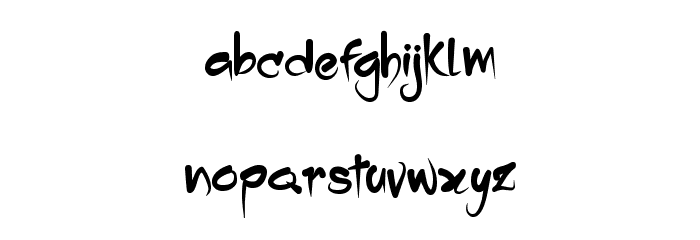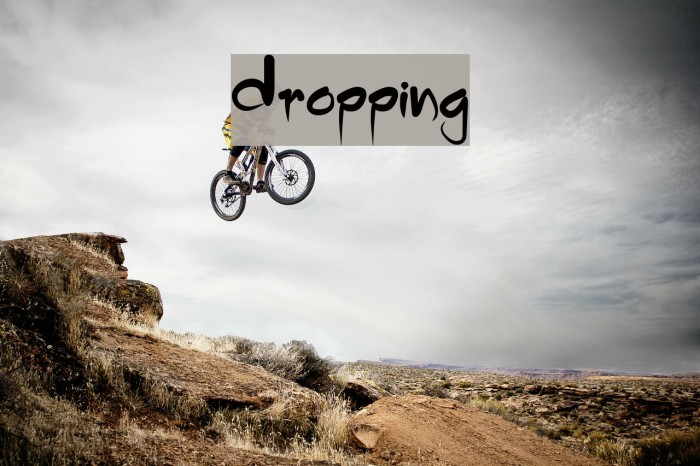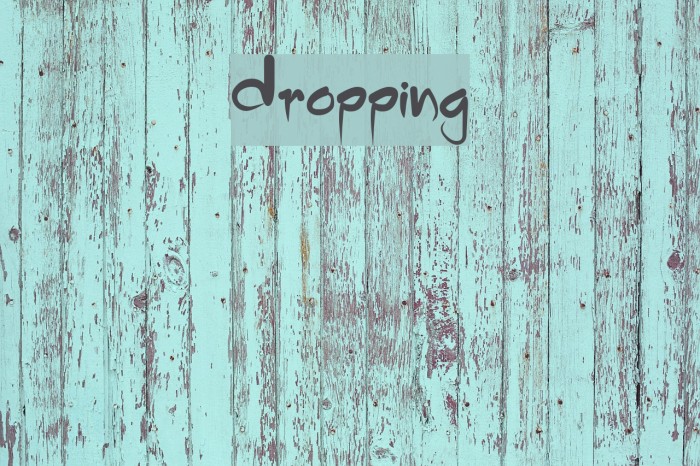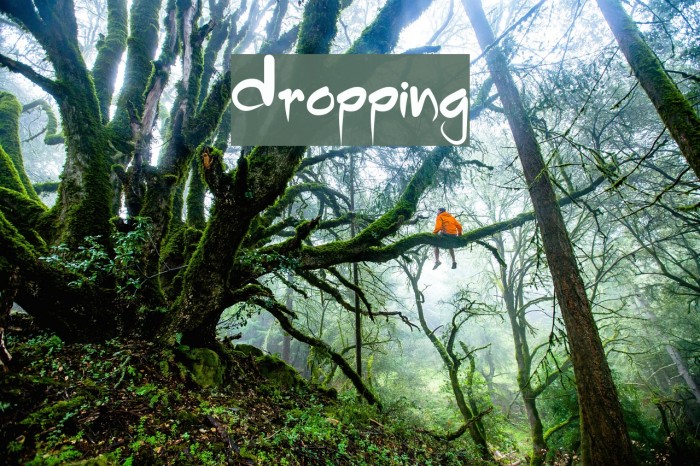
Dropping Font
This font features a playful and dynamic style with a handwritten appearance. The letters have a whimsical, slightly irregular form, giving them a lively and energetic feel. The strokes vary in thickness, adding to the font's casual and informal look. The characters are slightly slanted, enhancing the sense of movement and spontaneity. This font is well-suited for creative projects that require a fun and engaging aesthetic. Its unique style makes it ideal for designs that aim to capture attention and convey a sense of creativity and individuality.
A playful, handwritten font with dynamic and irregular strokes.
- Proposed Projects: Ideal for greeting cards, children's books, playful branding, and creative posters.